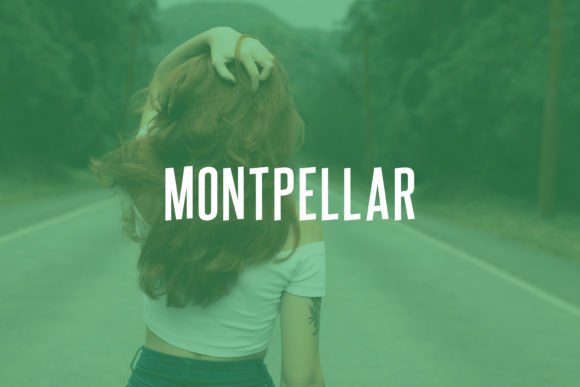
Enter the realm of medical excellence with Montpeller Font, a sans serif masterpiece crafted by Design Stag. Designed to elevate your medical logos, this font exudes professionalism, clarity, and a touch of elegance. Prepare to be amazed as Montpeller transforms your designs into beacons of credibility and trust, attracting patients like moths to a flame.
With its bold strokes and clean lines, Montpeller radiates an aura of authority and competence. Its simple yet captivating structure ensures effortless readability, even in the most complex medical jargon. Whether it's a sleek brochure, an informative website, or a captivating social media post, Montpeller effortlessly complements your medical message, making it shine brighter than a star-studded sky.
Beyond its medical prowess, Montpeller possesses a remarkable versatility that extends far beyond the realm of healthcare. Its clean and modern aesthetic seamlessly blends into various creative projects, from captivating posters and brochures to eye-catching flyers and presentations. Unleash your imagination and watch as Montpeller effortlessly elevates your designs to new heights, transforming them into visual masterpieces.
But Montpeller is more than just a font; it's an investment in your brand's identity. Its timeless design ensures that your medical practice remains relevant and respected for years to come. Embrace Montpeller today and witness the remarkable transformation it brings to your medical communications.